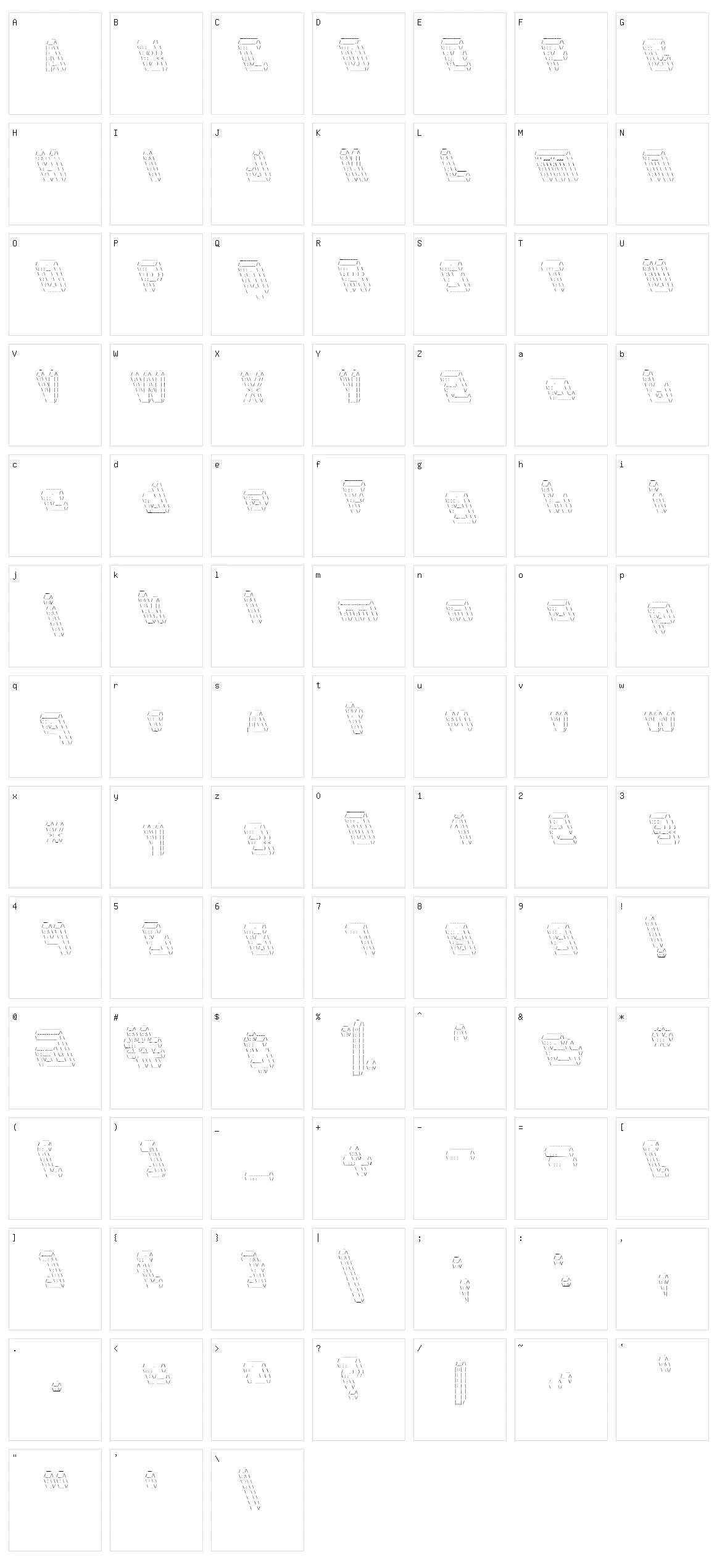
The free font Internerd is carefully designed by Type Sailor, showcasing a thoughtful balance of creativity and usability and falls under the Square font style. When you download the ZIP file, it contains only 158.47 KB of font files, making it lightweight and quick to download. Please review the license details below to understand permitted usage and distribution rights. If license information is not available, we recommend using this font for personal projects only or contacting the author directly for commercial usage permissions.
This font was designed in an meta-typographic exercise. Did you ever try to draw a letter using some wrtiting editors, like Word or Text Edit?